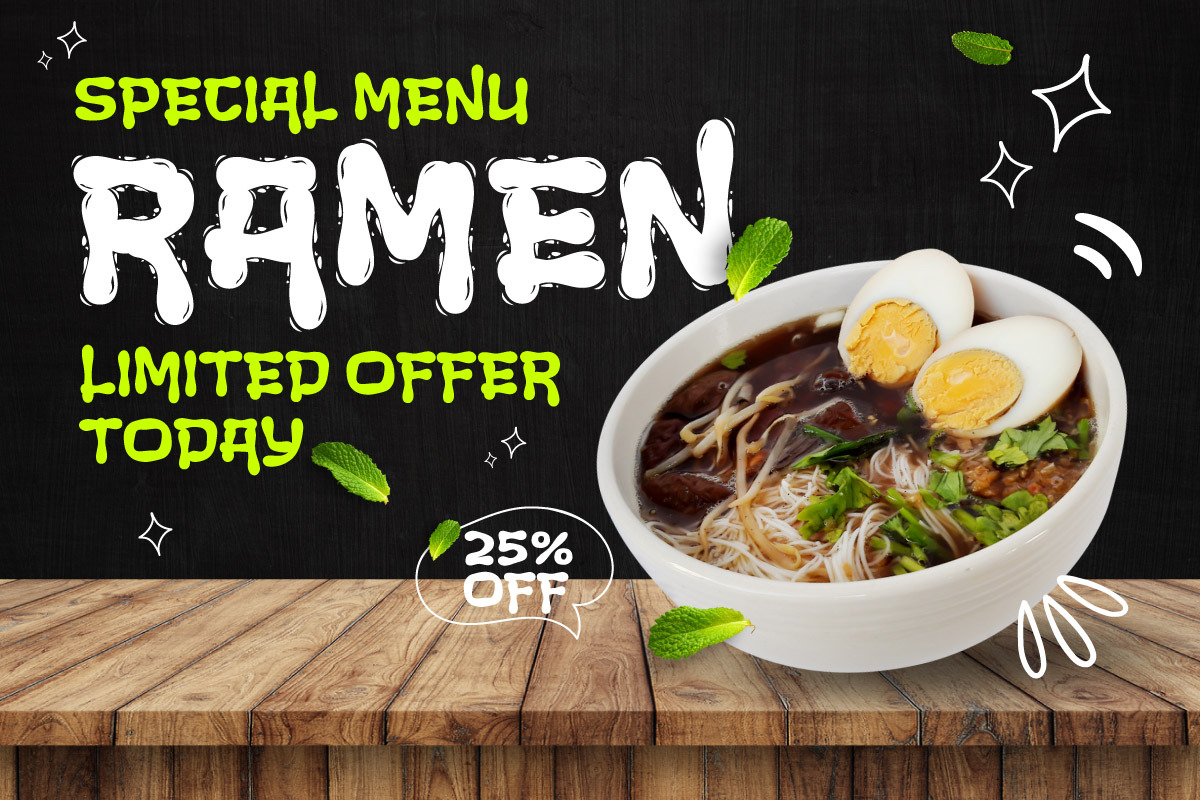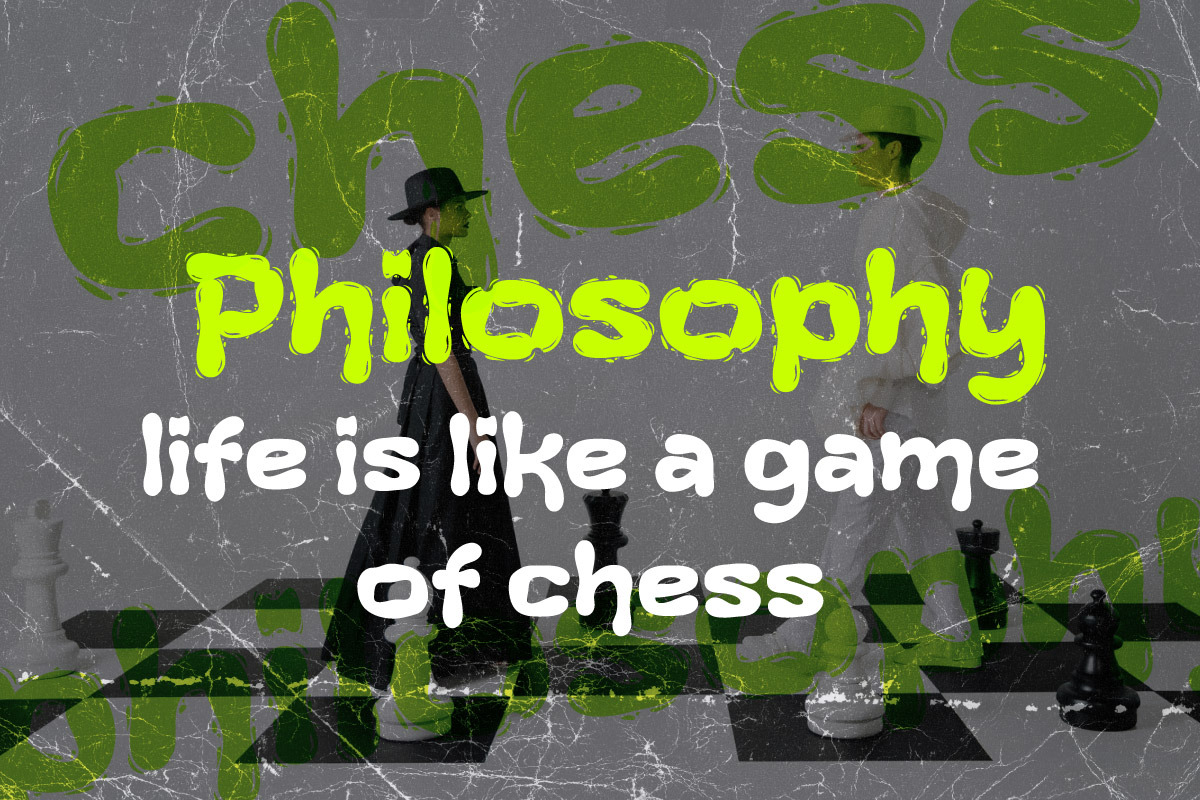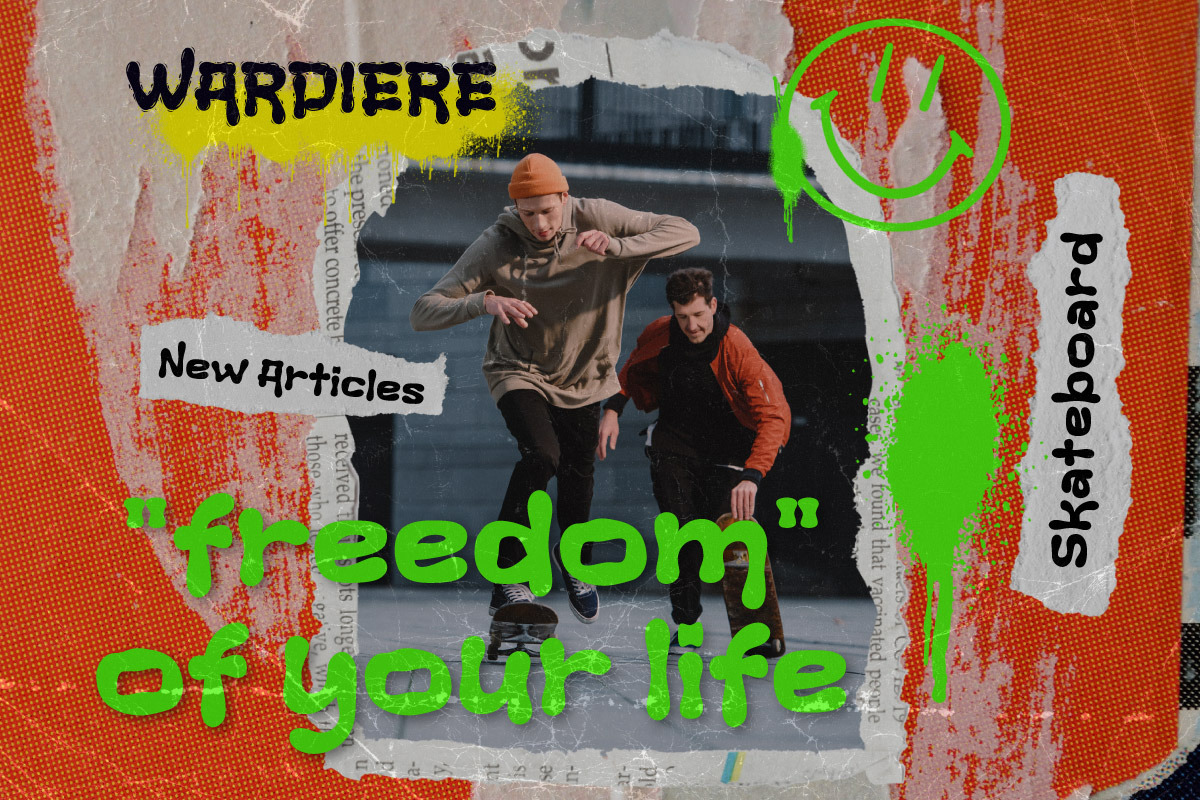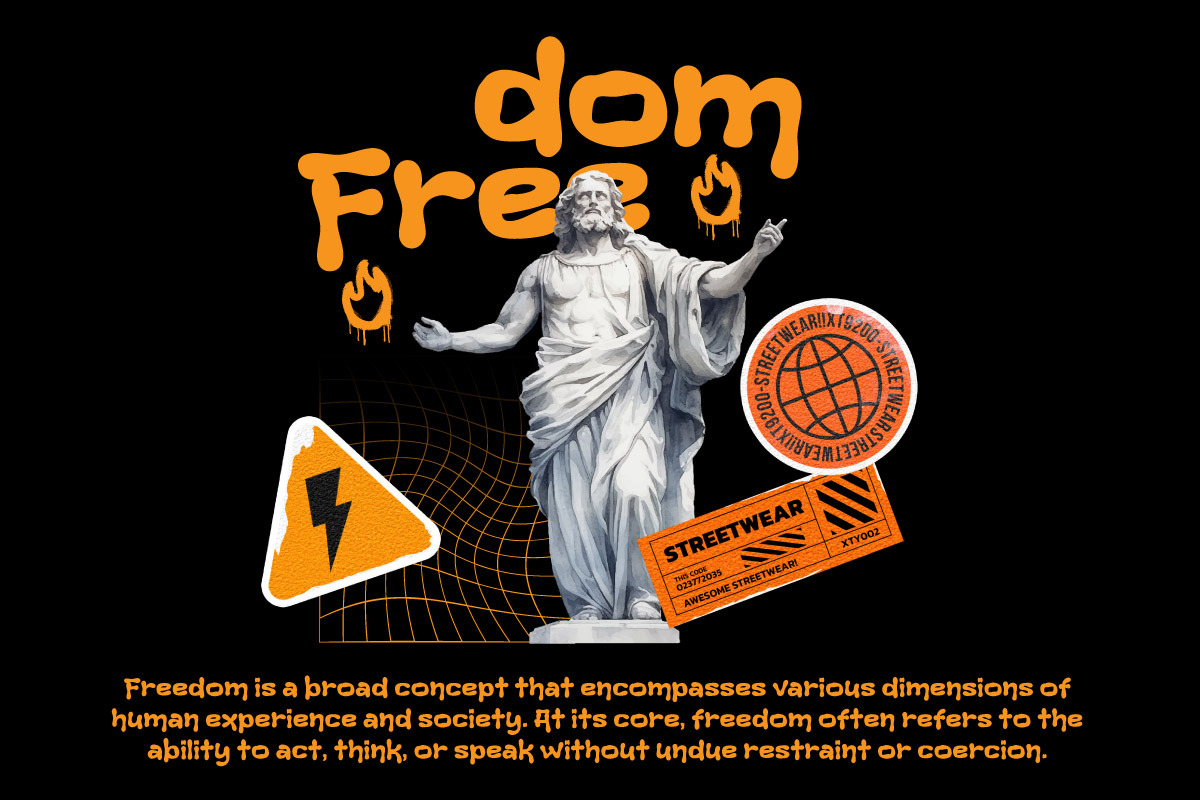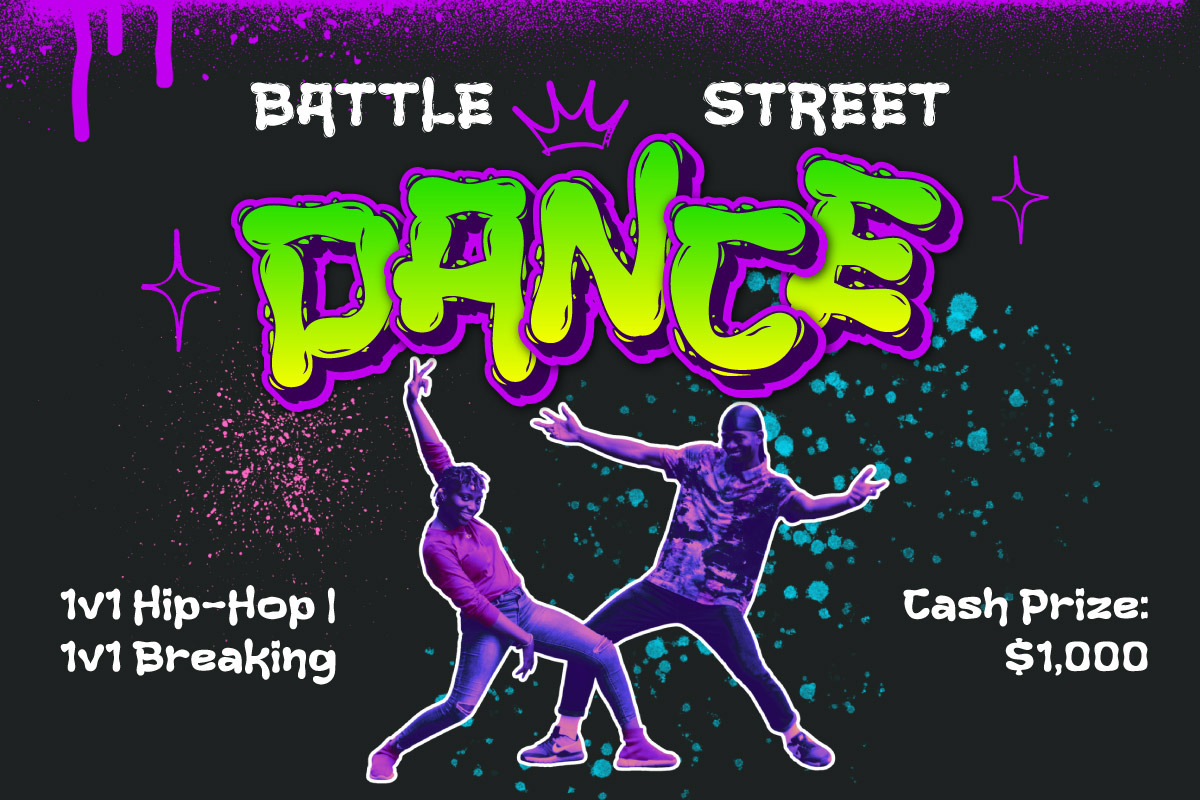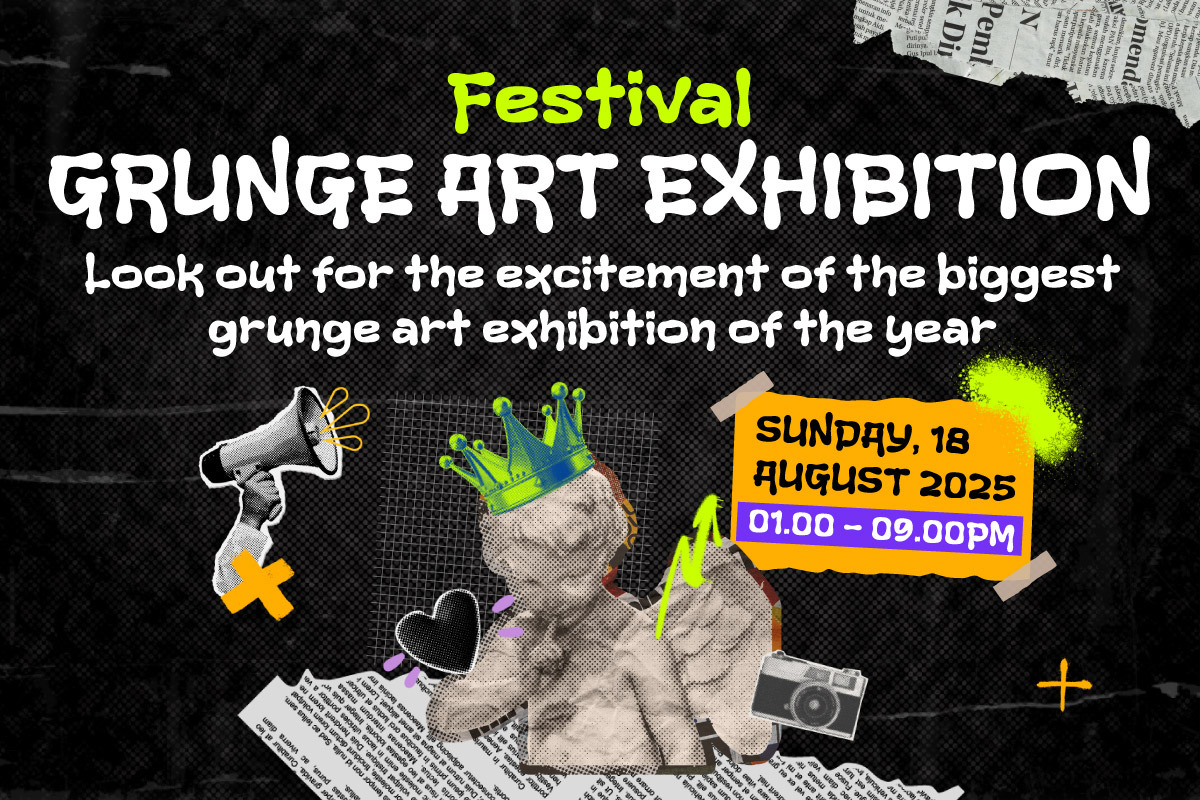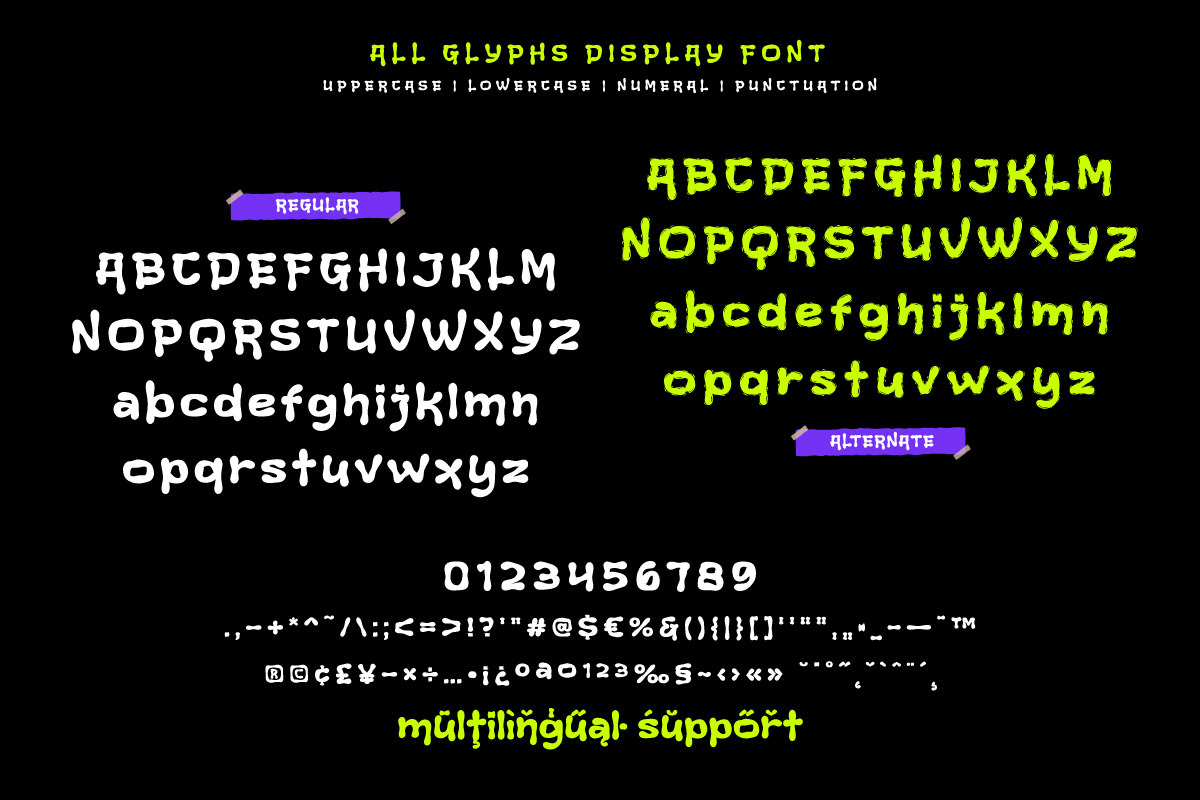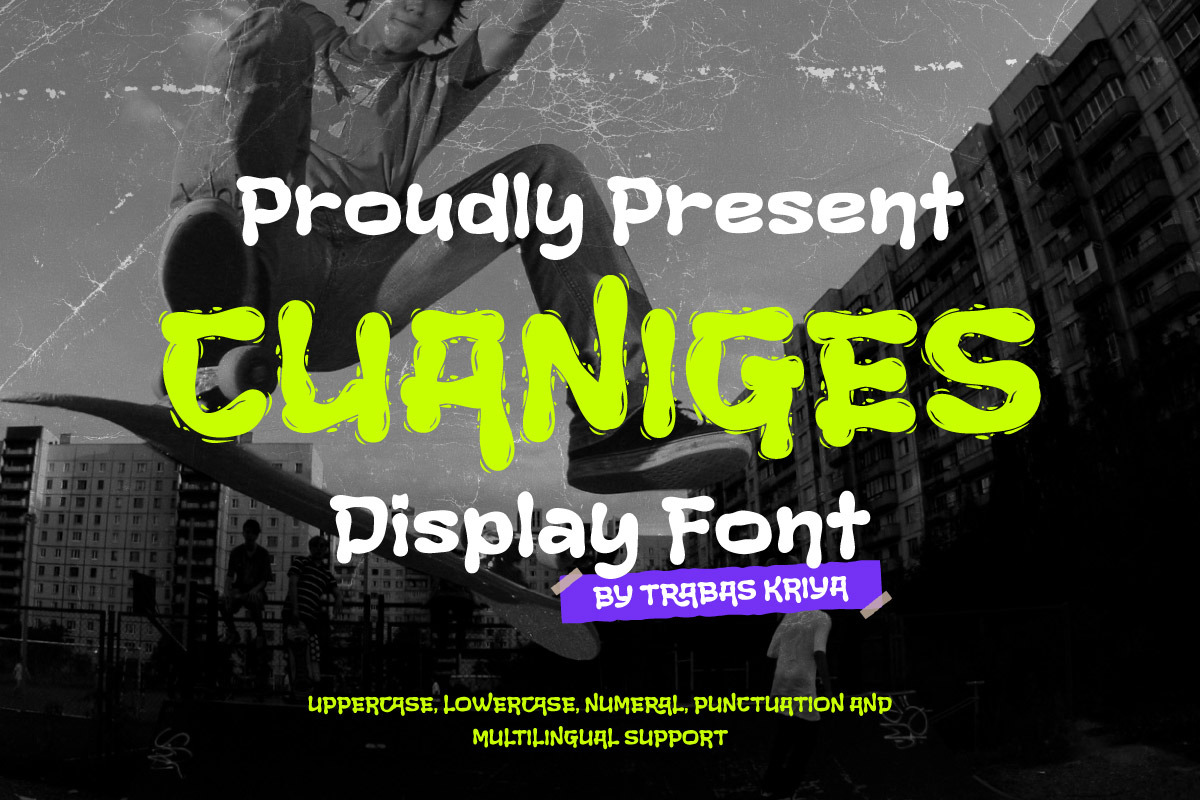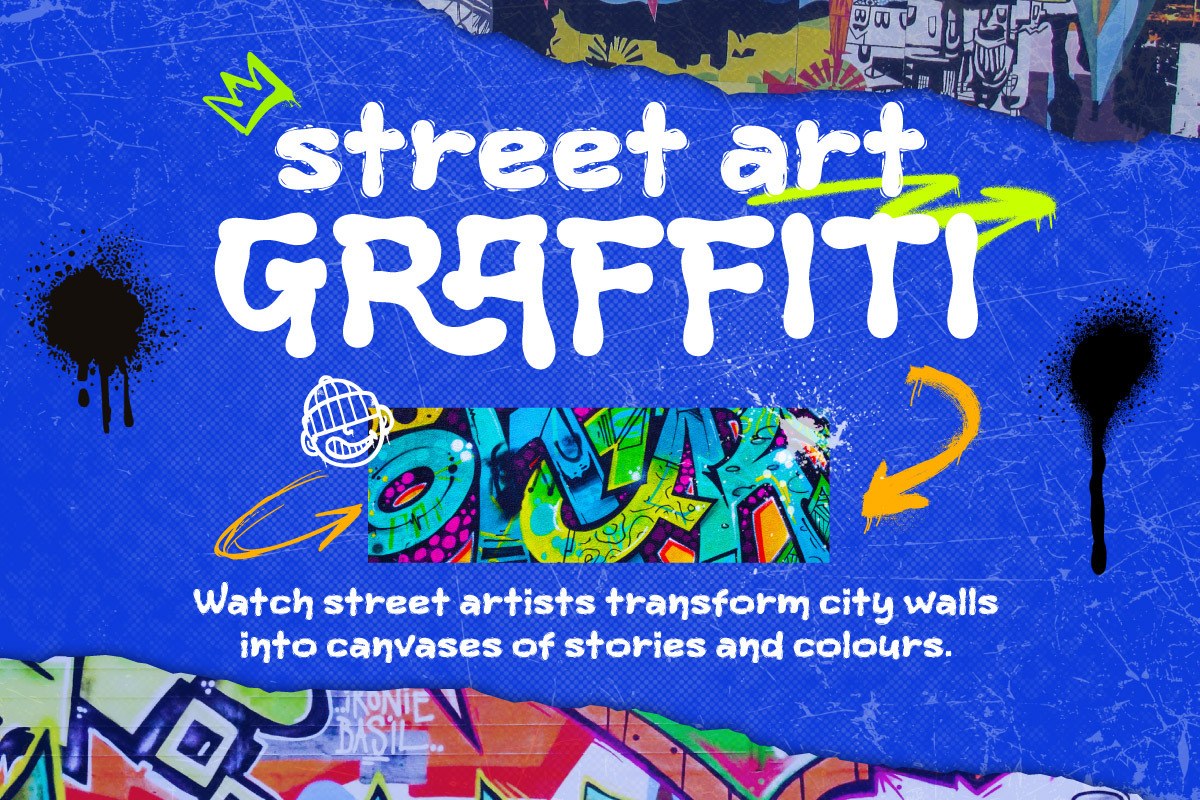
Cuaniges - Rustic Display Font
Cuaniges is a rustic graffiti display font that embodies boldness, rebellion, and raw street energy. Inspired by the urban spirit and underground art culture, this font carries an edgy personality that instantly makes your design stand out. Its rough strokes and playful shapes bring authenticity and power to every word.
Perfect for posters, streetwear branding, album covers, event promotions, or digital artwork, Cuaniges delivers a fearless vibe that commands attention. Its unique rustic graffiti style makes it versatile for projects that aim to capture the essence of youth, freedom, and urban creativity.
With Cuaniges, typography becomes more than just text—it becomes a visual shout. It invites the audience to feel the rhythm of the streets, the daring movement of graffiti, and the pulse of modern underground culture. A perfect companion for bold and unapologetic designs.